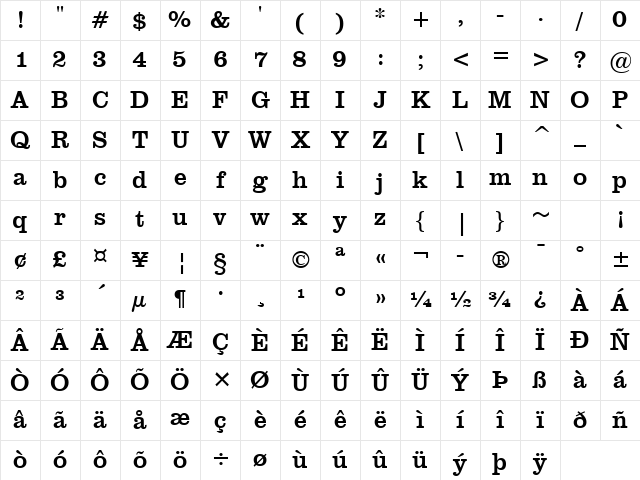
Clare Normal
Clare Family
Complete Clare Normal glyph index. Displaying only characters natively supported by Clare Normal font.
Design Context for Clare
Clare is a composed and adaptable typeface that performs quietly and consistently across a wide range of design contexts.